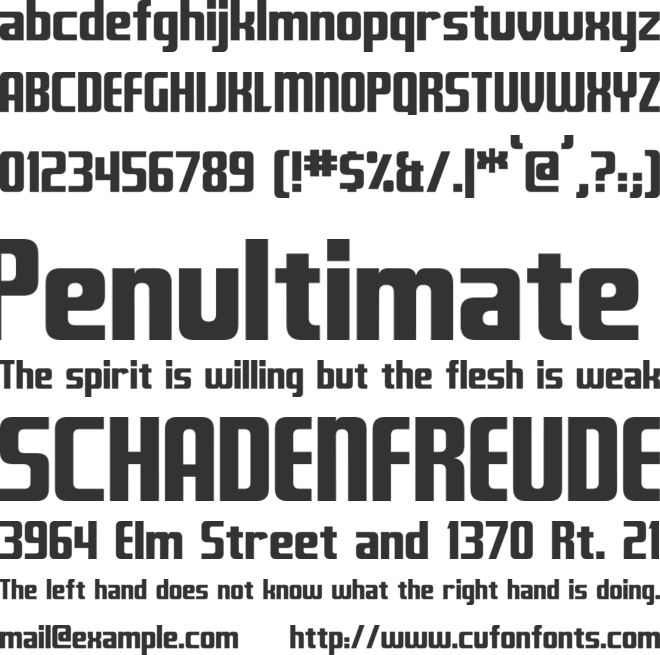
Fontana Font Family
Neale Davidson
Fontana is based on the Pocket Books titling for their Star Trek novels through the 1970s and most of the 1980s. Includes accent characters, extended punctuation, and Euro. Includes bold and italic versions. "Fontana" is named after DC Fontana, one of Star Trek's most prolific authors.